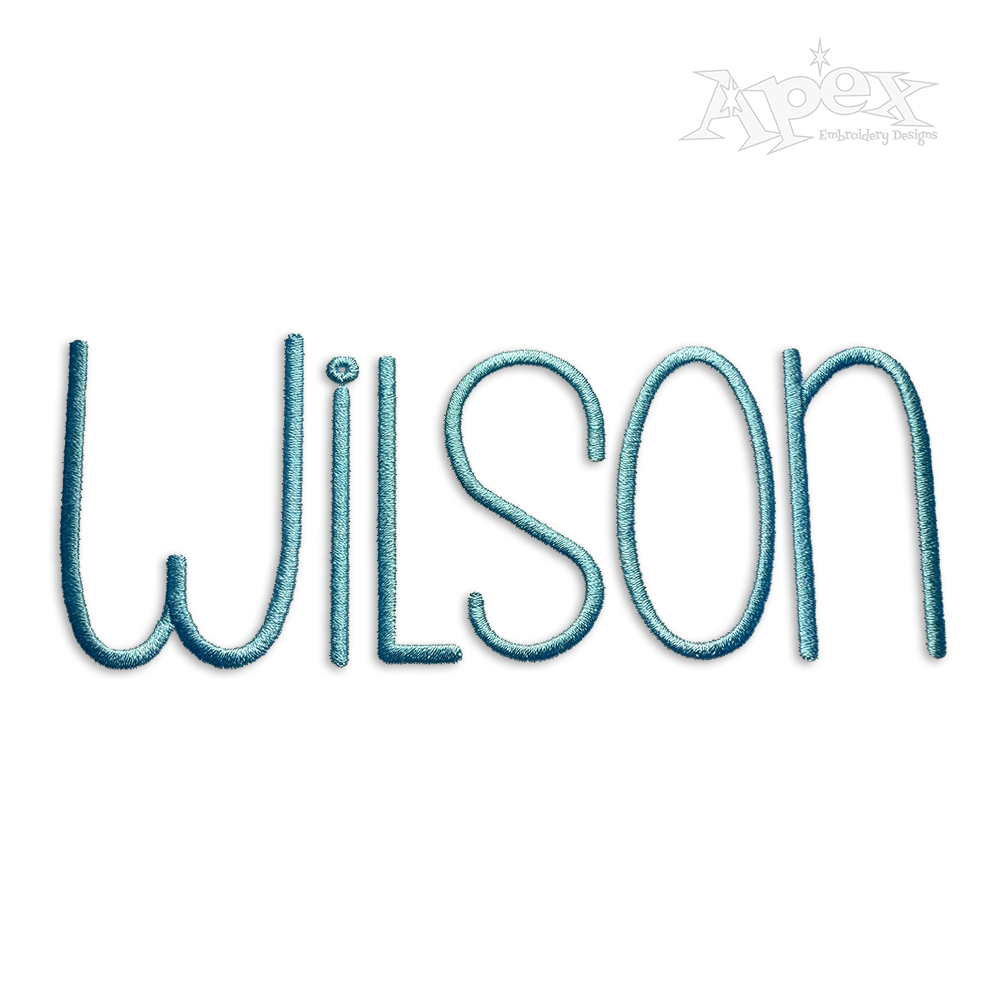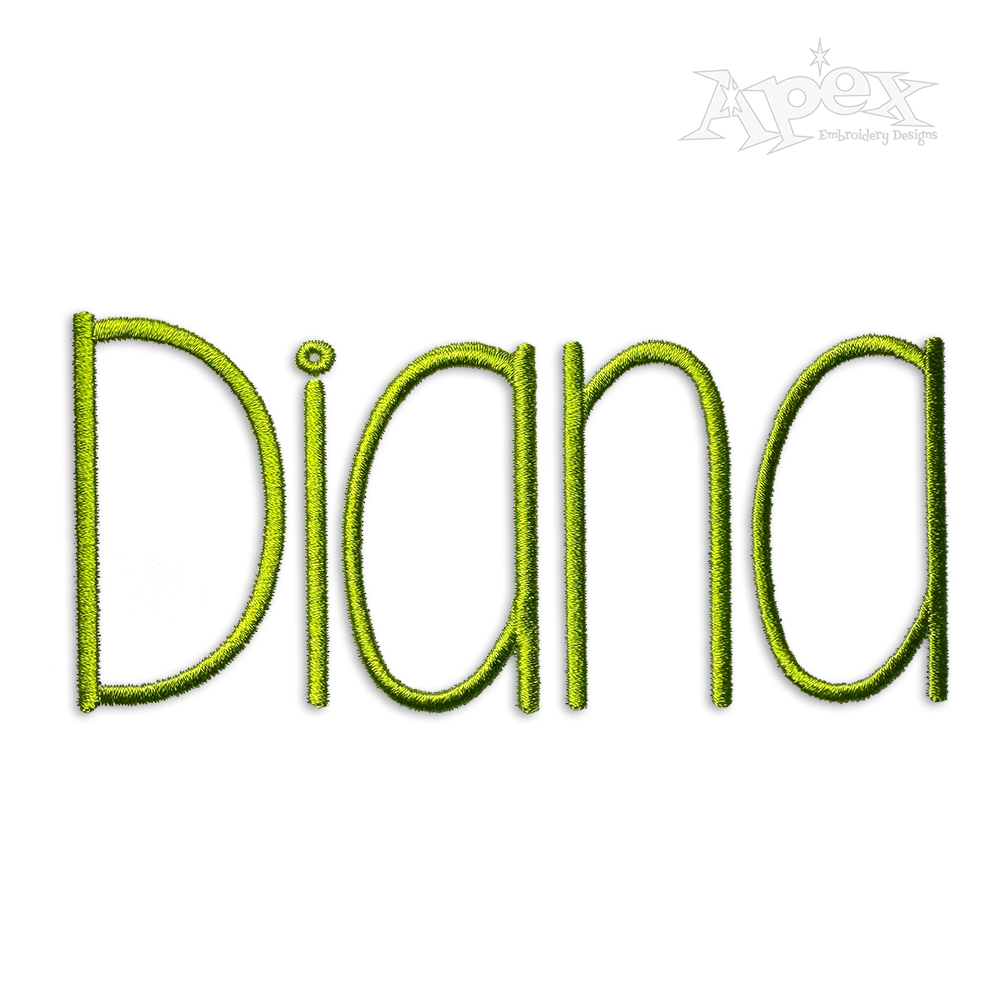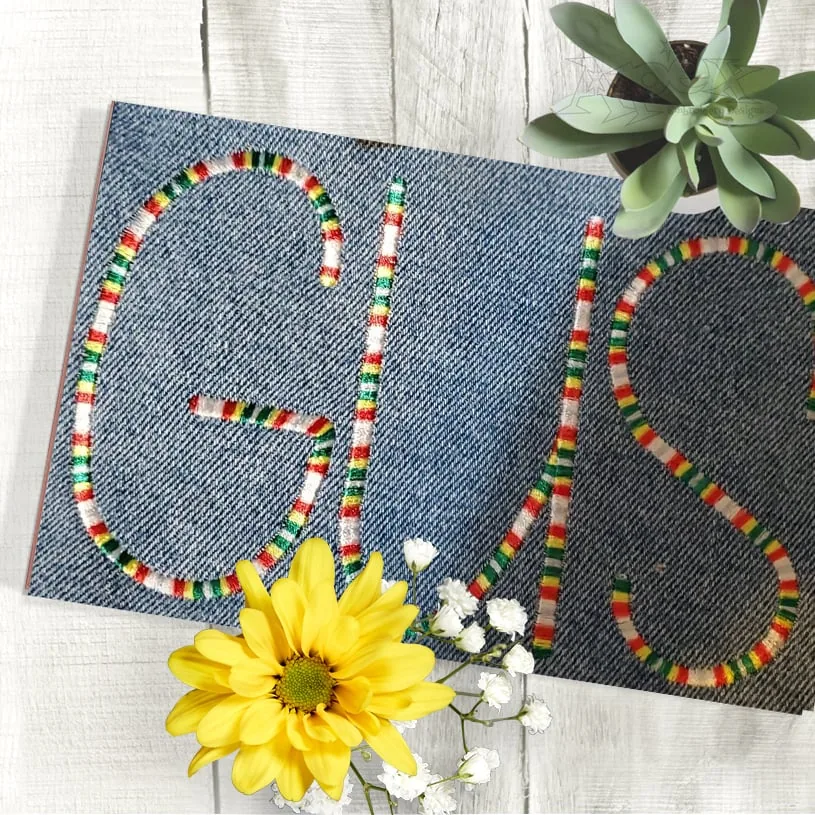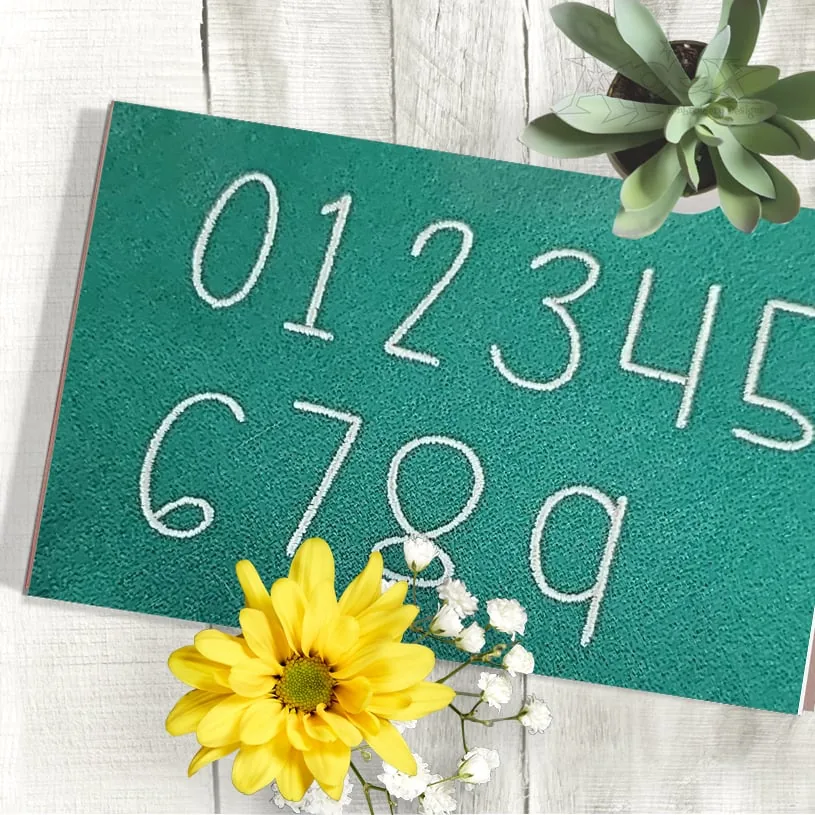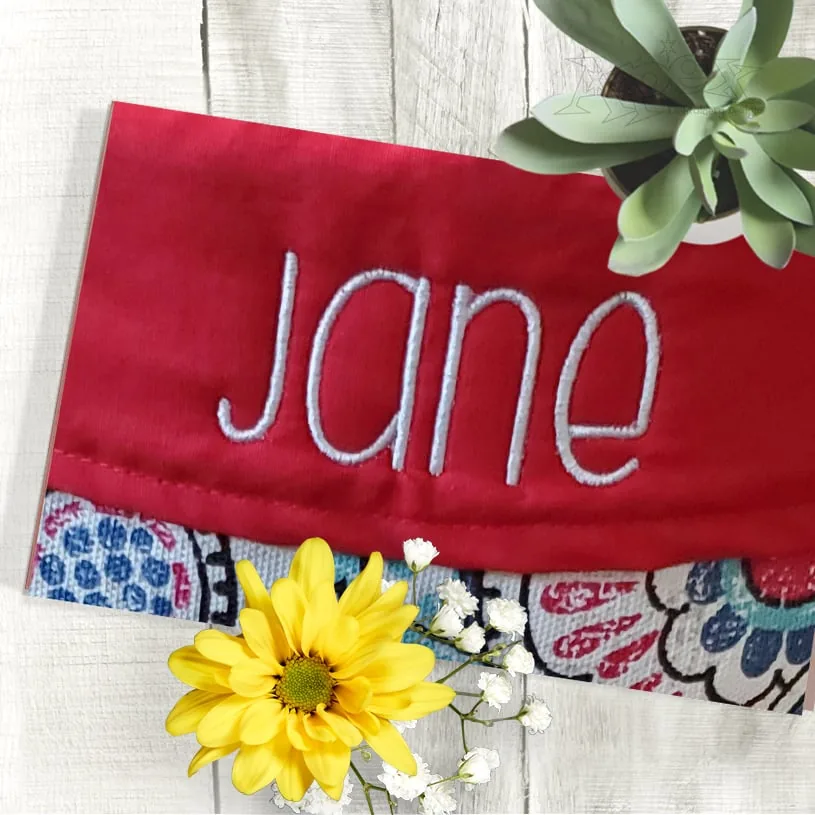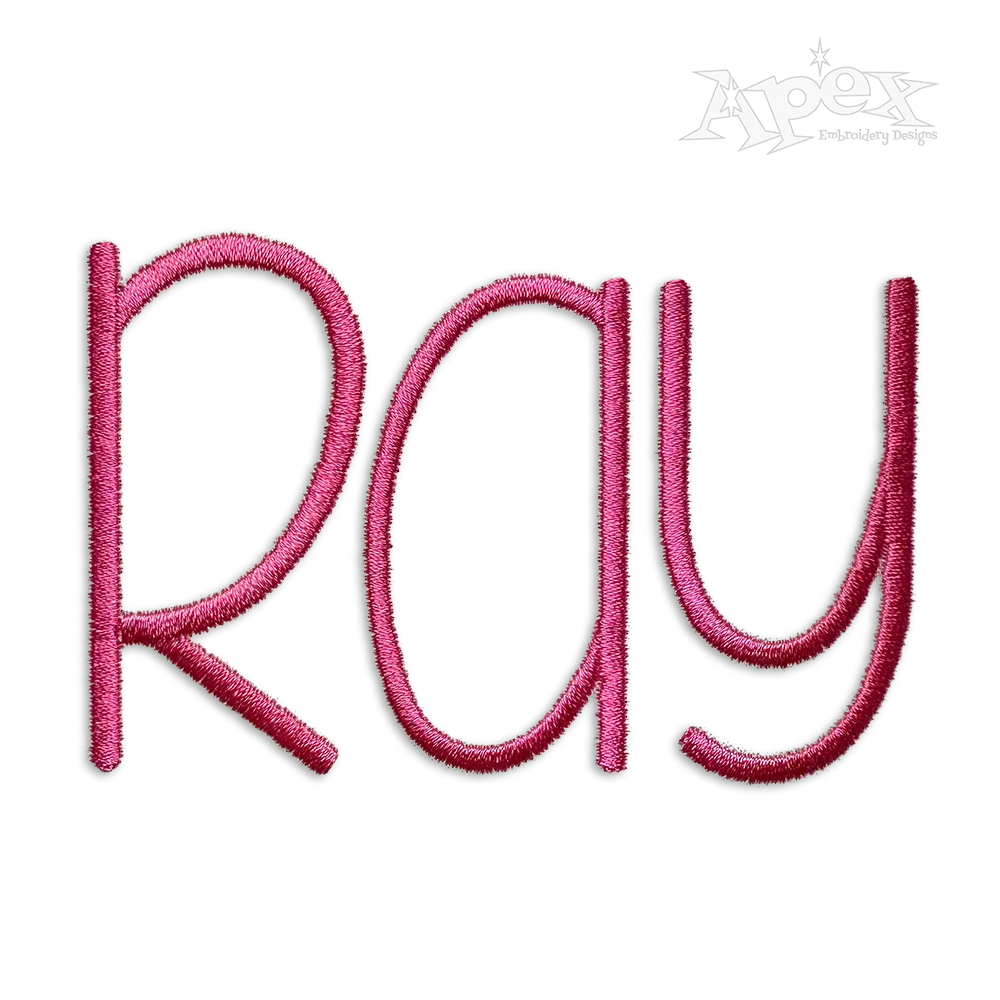
Bradford Embroidery Font
When digitizing the Bradford Embroidery Font in our studio, we sought to capture the pure, sunny optimism of childhood without sacrificing the poised refinement of a traditional monogram. Designed with gentle curves, balanced proportions, and an undeniably charming silhouette, Bradford moves fluidly between playful playground casual and classic, heirloom-worthy elegance. Each letterform is plotted with intentional stitch paths that yield a silky, light-catching satin finish, bringing a bespoke, tailored warmth to everything from sweet nursery layettes to school-day essentials for both boys and girls.
Project Ideas for Bradford Embroidery Font
Bradford’s sweet, unisex aesthetic makes it an indispensable addition to your personalized gifting repertoire. Consider stitching it onto:
- Heirloom Nursery Linens: Frame a newborn’s name or birth year across piqué crib blankets, quilted play mats, and soft linen pillow shams.
- Bespoke Children’s Apparel: Monogram classic Peter Pan collars, knit cardigans, bubble rompers, and matching sibling holiday pajamas.
- Personalized Back-to-School Gear: Add standout varsity flair to canvas backpacks, lunch totes, and denim jackets.
- Milestone Keepsakes: Stitch personalized birthday celebration crowns, customized party banners, and embroidered memory memory-quilts.
- Luxury Baby Shower Gifting: Create tailored gift sets featuring hooded terrycloth towels, plush swaddles, and coordinating burp cloths.
Because of its clean clarity and legible geometry, Bradford positions beautifully across a variety of traditional and modern placements:
- Center Chest & Bodice: Use the 2-inch or 4-inch scale centered across children's sweatshirts, rompers, or t-shirts for an easy, timeless look.
- Collar & Cuff Accents: Utilize the petite 1-inch uppercase letters along the curve of a Peter Pan collar or staggered along the cuff of a cozy knit sweater.
- Corner Diagonals: Position a bold 4-inch or 6-inch initial at a 45-degree angle on the bottom corner of heirloom baby blankets and receiving wraps.
- Oversized Centerpiece: Command attention by centering the 6-inch or 8-inch capital initial in the middle of a diaper tote, toy bin, or crib coverlet.
Bradford Embroidery Font Craft & Letterform Details
The true magic of the Bradford Embroidery Font lies in its digitized architecture. Rather than relying on simple automated conversions, every single glyph has been carefully mapped by hand to guarantee flawless satin stitch flow. The gentle turns and rounded terminals are sculpted with angled transitions that prevent thread bunching and ensure crisp, clean borders that retain their shape across knits, woven linens, and plush terry.
We calibrated the underlay stitching to provide exceptional structural integrity without introducing stiff bulk, allowing garments to maintain their soft drape against delicate skin. With calibrated pull-compensation tailored into every stroke, your machine will glide through each letter with effortless precision, yielding consistent, professional-grade embroidery that honors your craftsmanship and withstands years of childhood wash and wear.